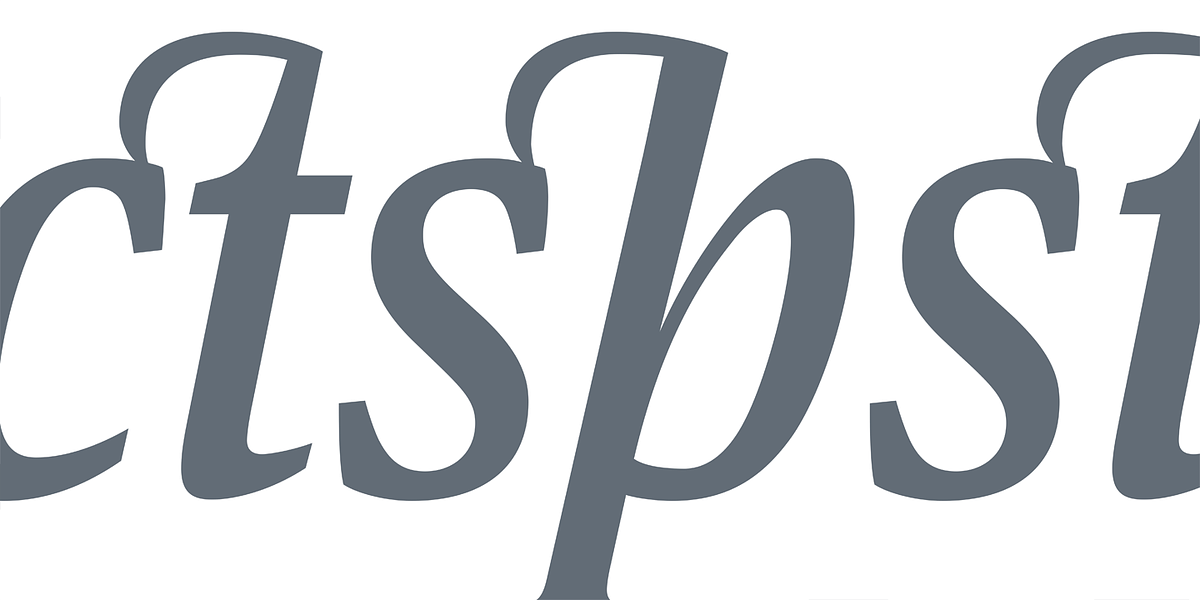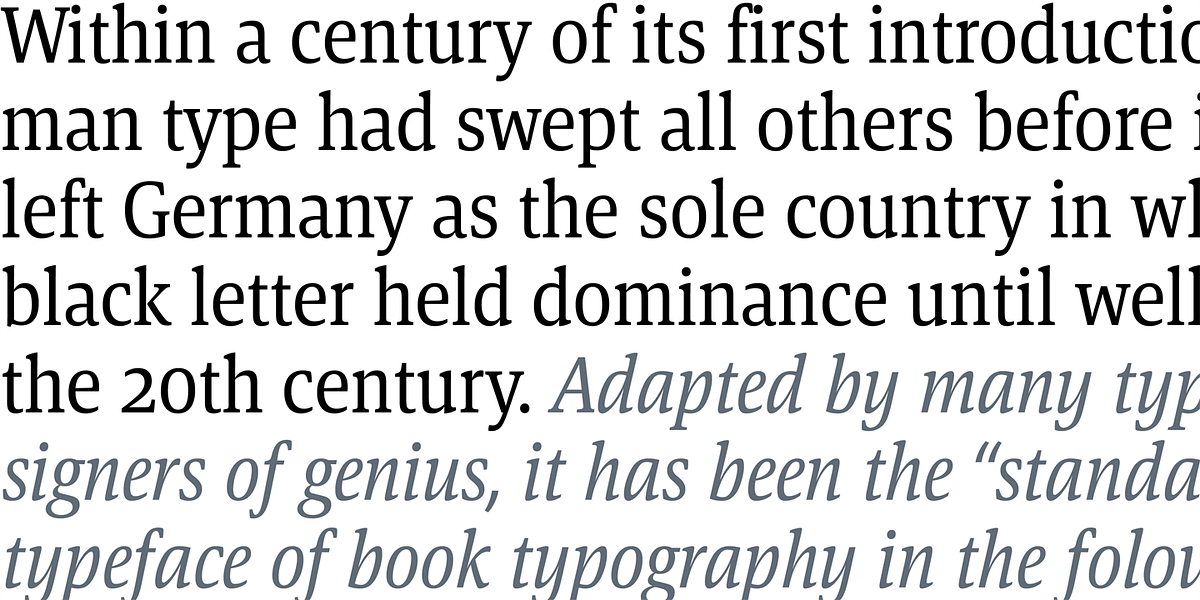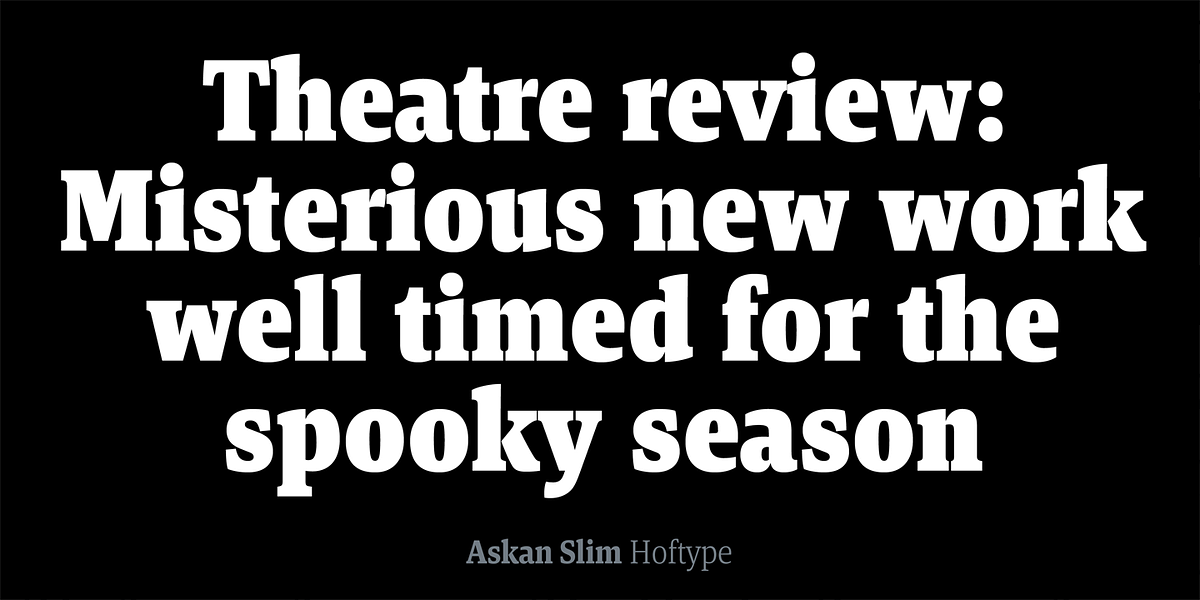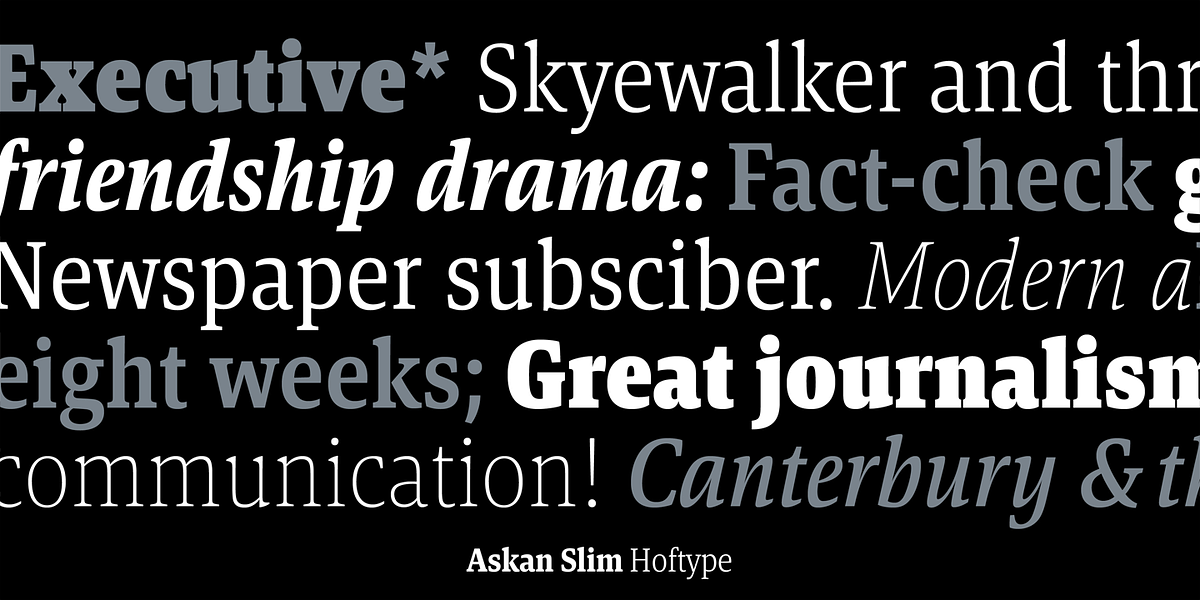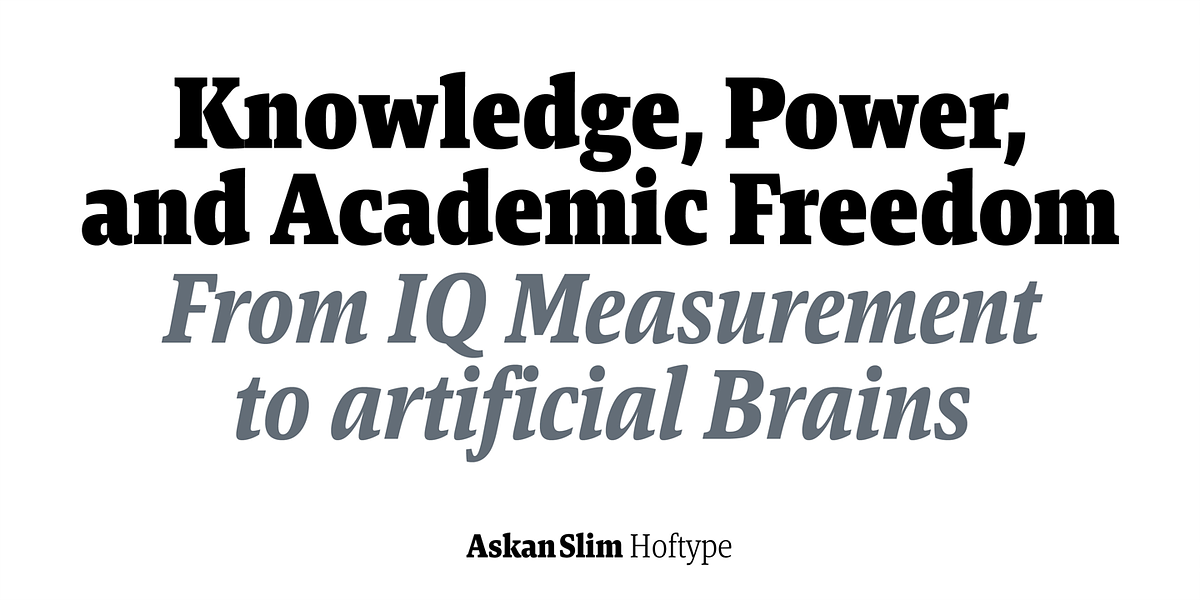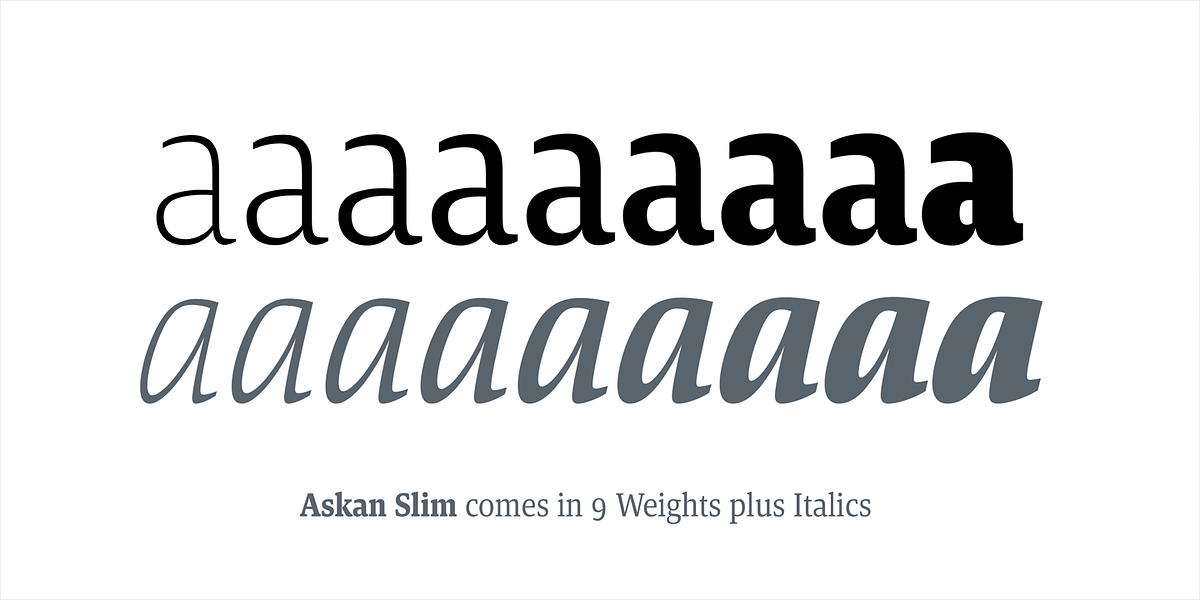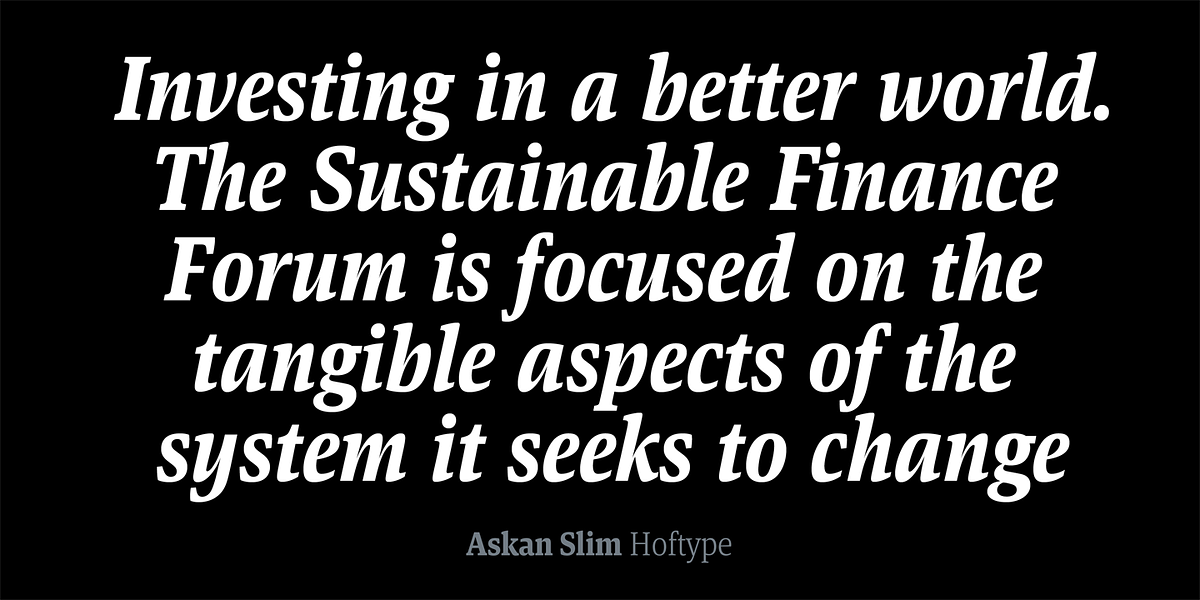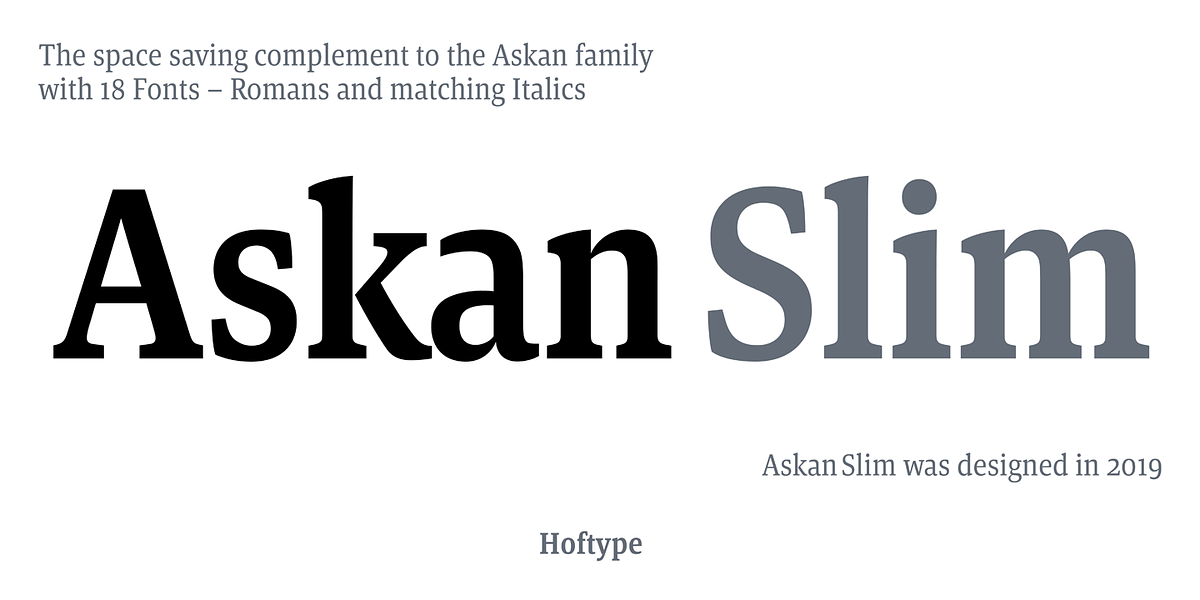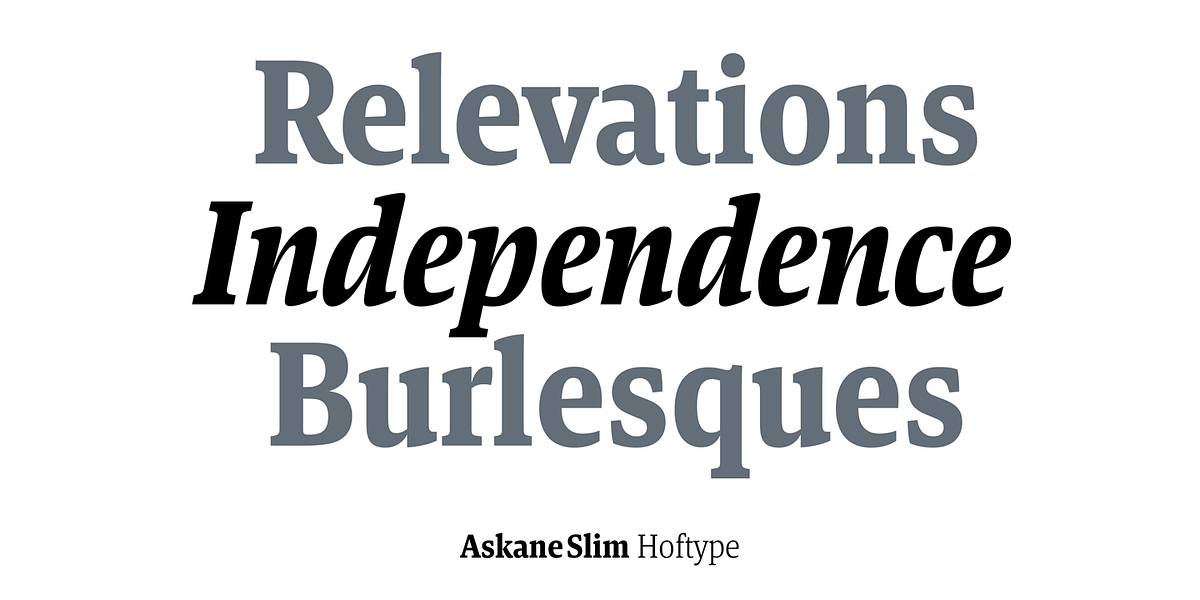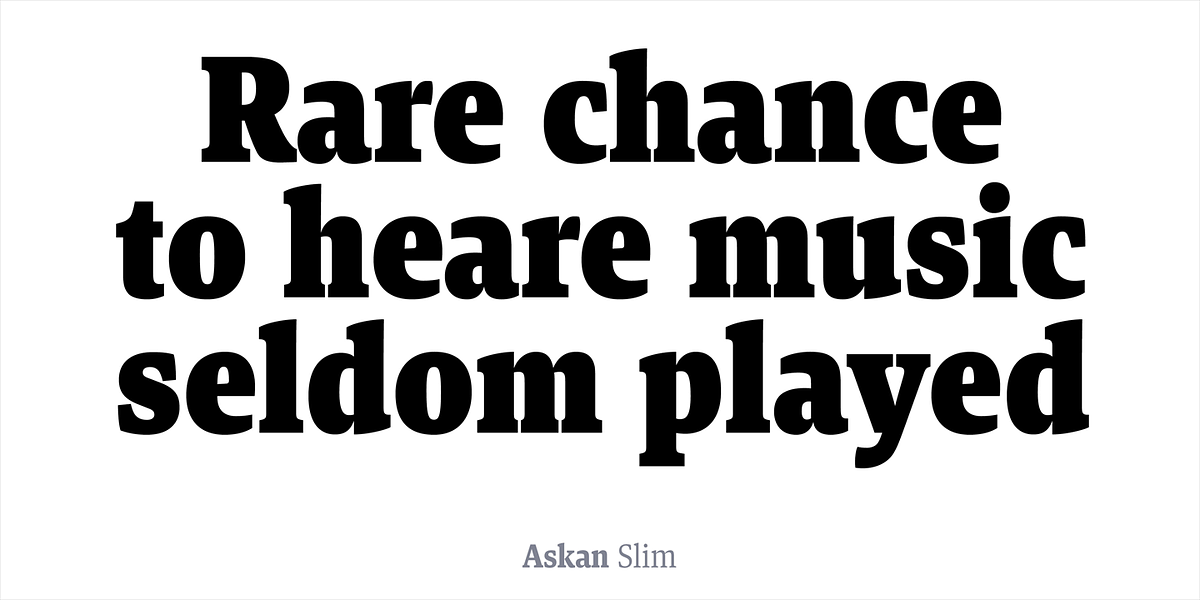
Askan Slim
Askan Slim is a condensed version of the Askan serif typeface. It's designed for both display and text use, making it versatile for headlines, paragraphs, and posters. The font includes a variety of typographic features like small caps, ligatures, and different numeral styles.